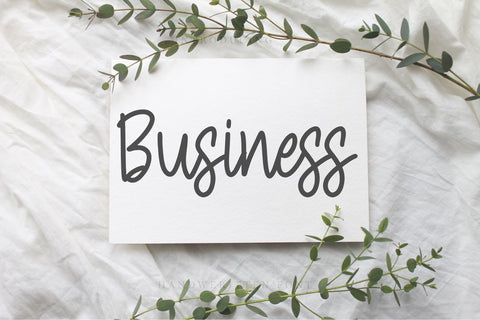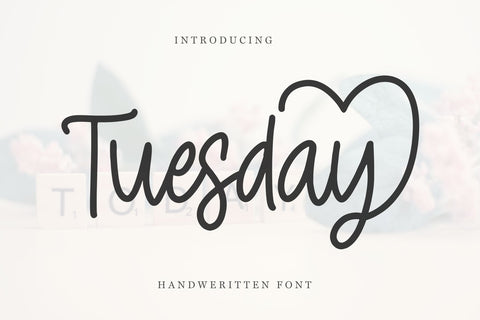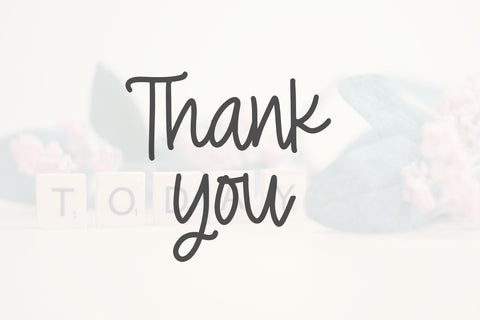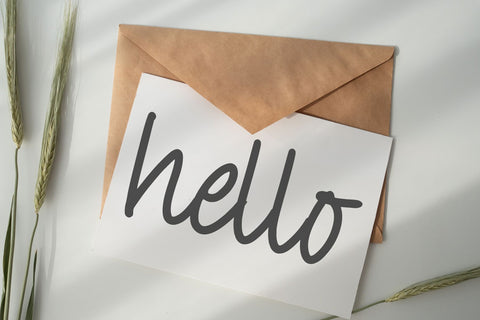
Tuesday – Elegant Handwritten Cursive Font
Tuesday is a chic handwritten cursive font with smooth curves and an elegant touch. Perfect for wedding invitations, branding, logos, greeting cards, fashion lookbooks, and any design that needs a stylish and romantic vibe.